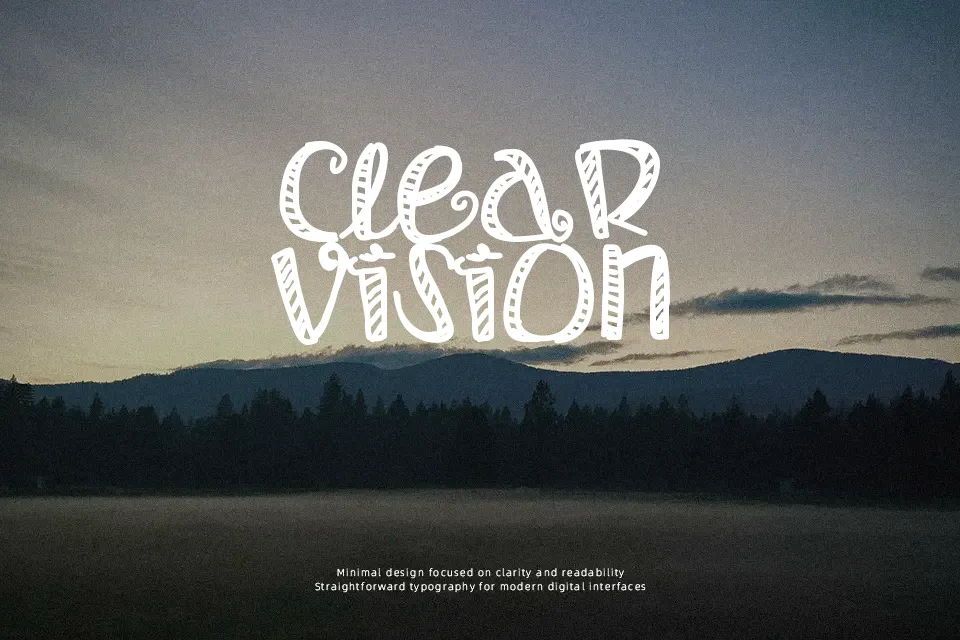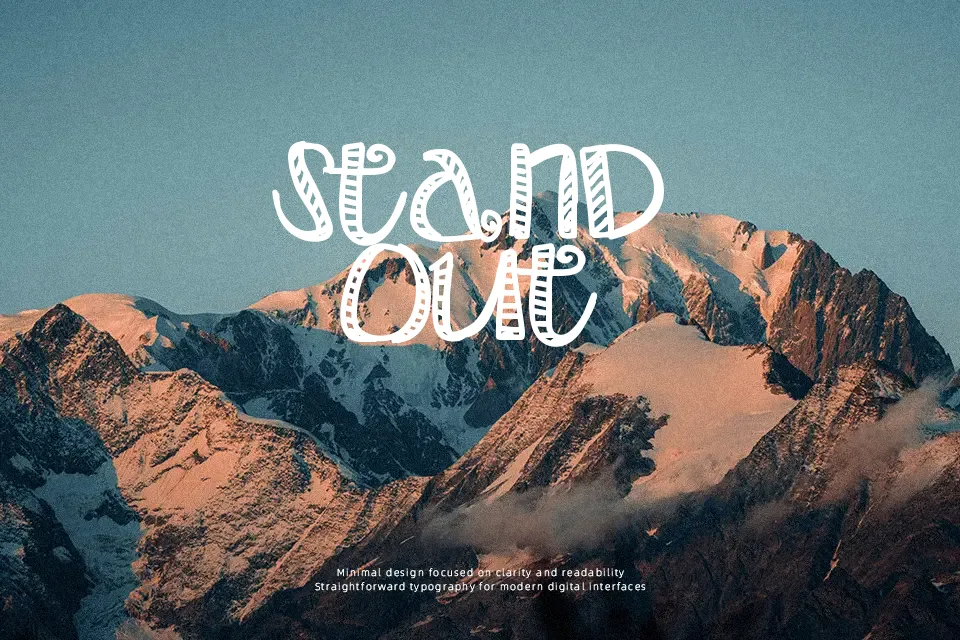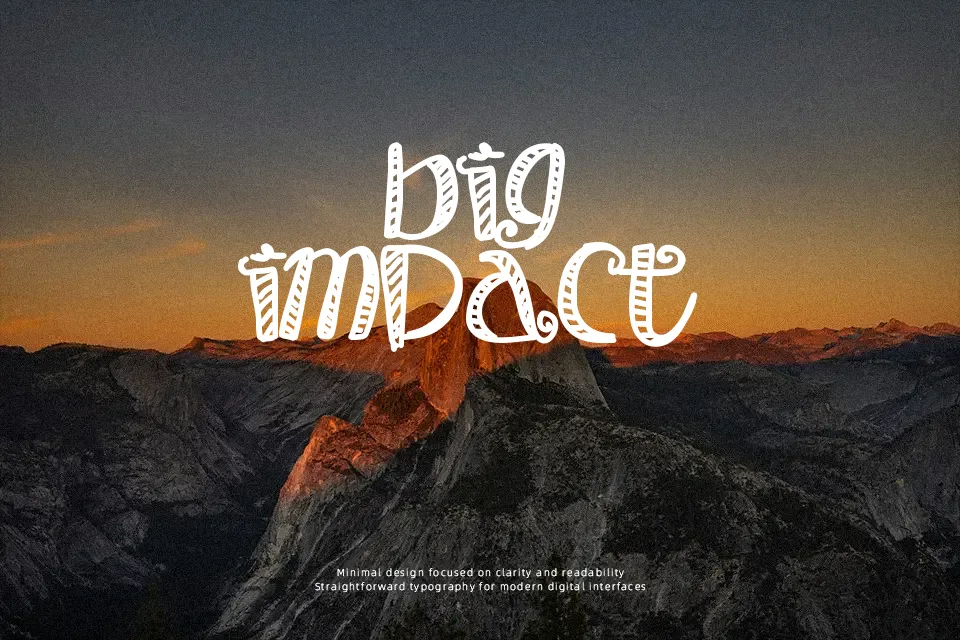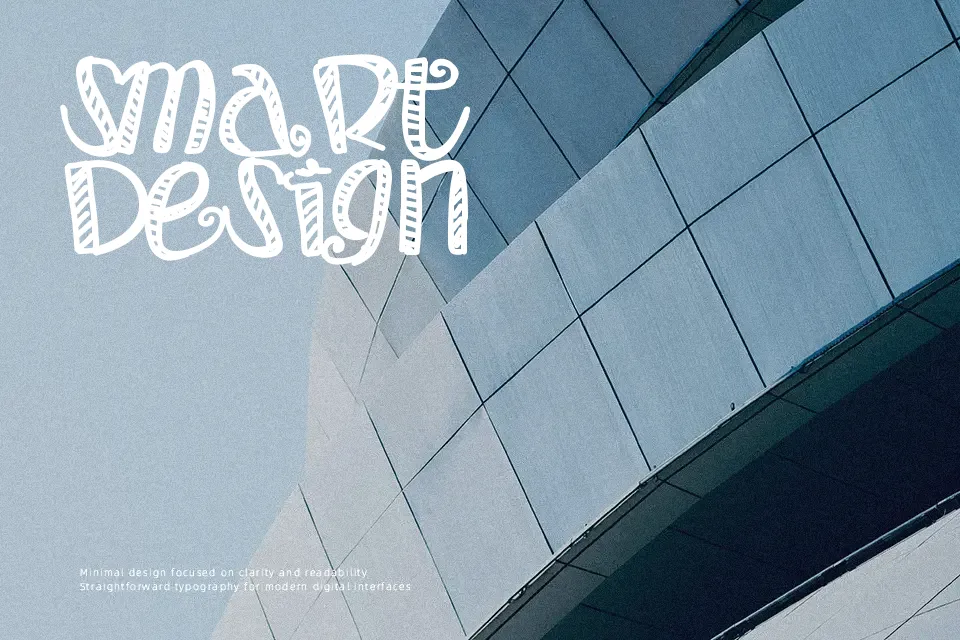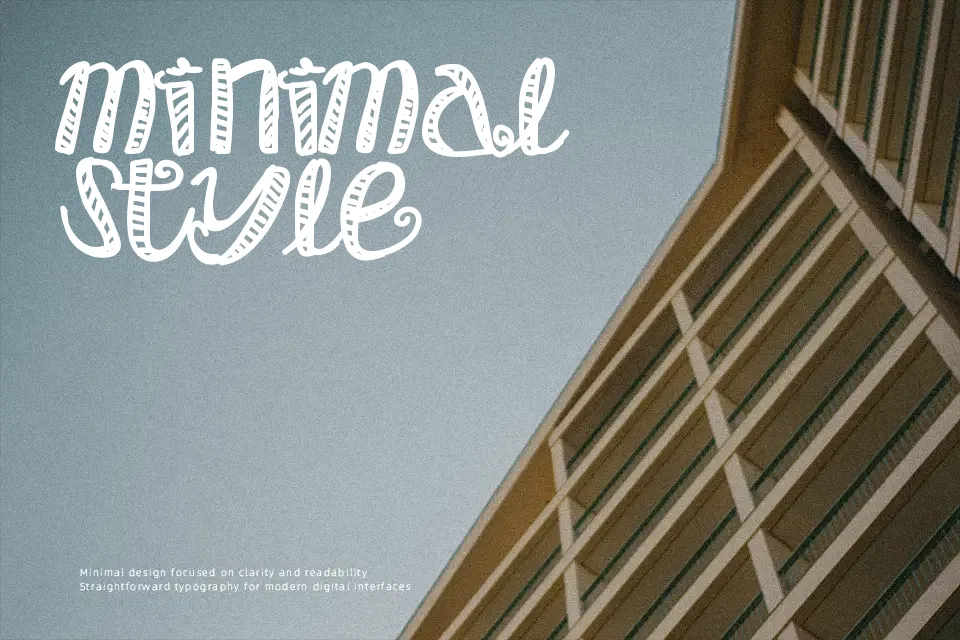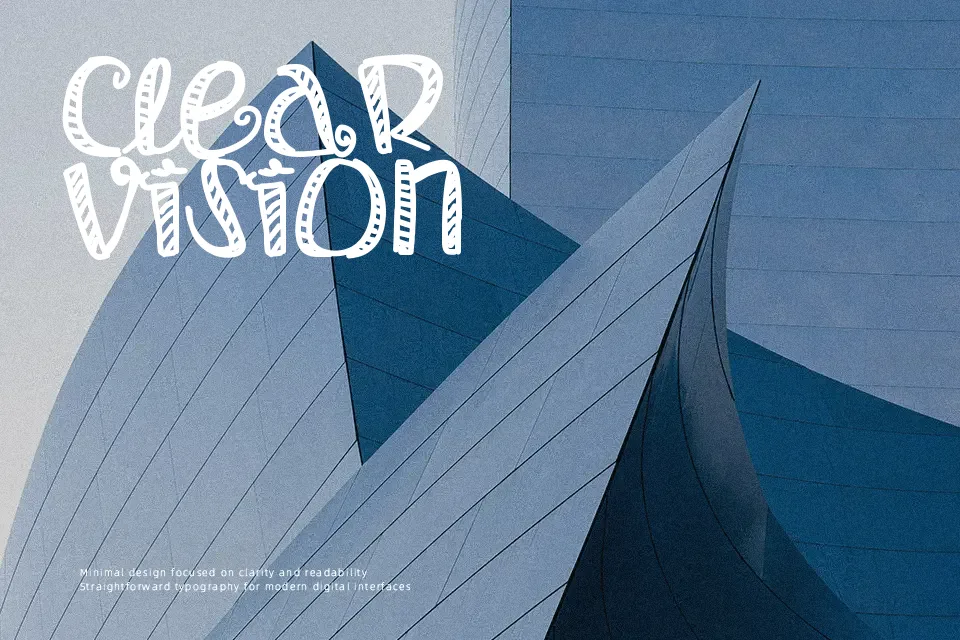
Objectum Sexuality Font
Objectum Sexuality Font works best as a bold visual accent rather than a neutral reading face. Its hand-drawn display forms use uneven contours, compact proportions, and a deliberately rough stroke treatment that gives words a handmade rhythm. The spacing supports short, attention-focused lines, particularly in posters, album graphics, and expressive social media artwork. Letterforms remain most effective at larger sizes, where their irregular construction is easier to read. For practical use, keep copy brief and allow sufficient scale; the textured shapes become less comfortable in captions, dense layouts, or continuous text.
Best For: music poster headlines,album artwork,expressive apparel graphics,creative social media graphics
Perfect for branding, music, and poster, with a artistic and decorative style.